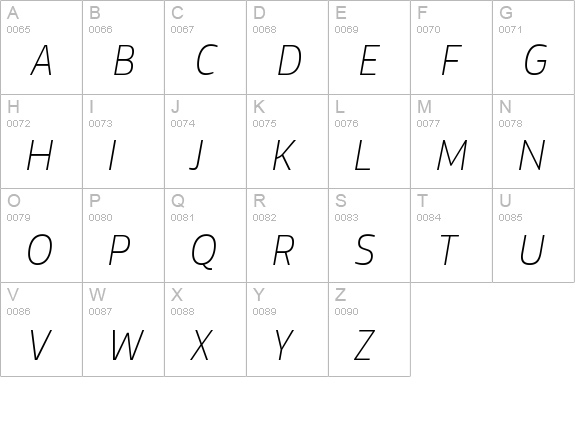
Vinkel Extra Light Italic Font Details
Vinkel Extra Light Italic is a refined, elegant, italic variant in the Vinkel typeface family \xE2\x80\x94 well suited to elegant body text, refined sub-headings, and luxury branding.
Vinkel Extra Light Italic font is a modern and elegant typeface that exudes sophistication and style. With its delicate and graceful slant, this font is perfect for adding a touch of refinement to any design project. The sleek and slender letterforms of Vinkel Extra Light Italic convey a sense of lightness and airiness, making it ideal for use in branding, editorial design, and more. The beauty of Vinkel Extra Light Italic font lies in its versatility and ability to effortlessly elevate any design it is applied to. Whether used for headlines, body text, or accents, this font adds a touch of sophistication and sophistication to any project. And the best part? Vinkel Extra Light Italic font is available for free download at FontsMarket.com, making it accessible to designers and creatives of all levels. Don't miss out on the opportunity to enhance your designs with this stunning typeface. Download Vinkel Extra Light Italic font today and add a touch of elegance to your next project!